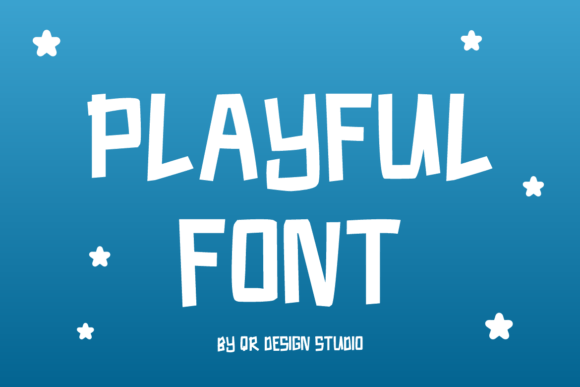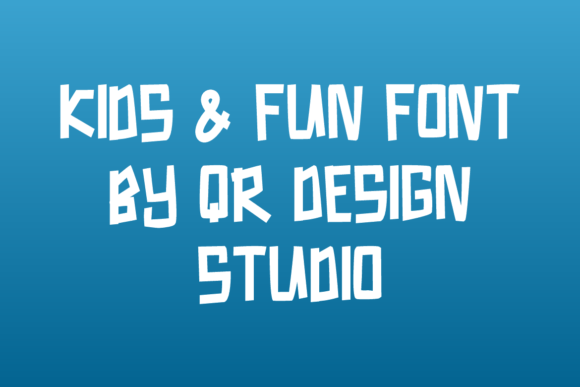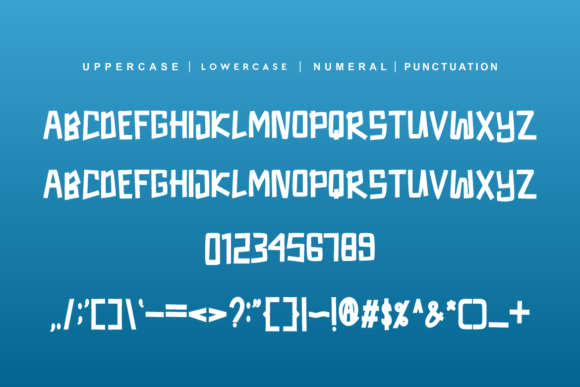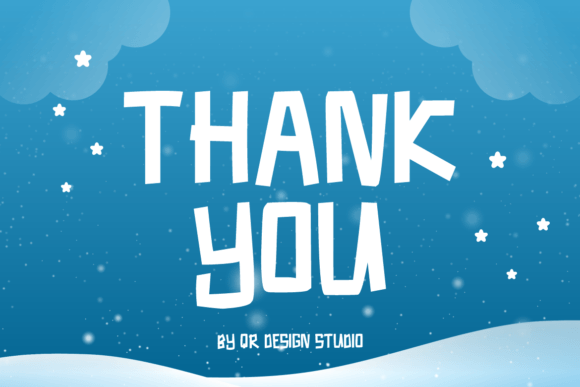
Introduction to Snow Funny Font
Have you ever stared at a blank canvas, feeling the weight of creative pressure? The cursor blinks, taunting you to make a move. And then, it happens – a burst of inspiration strikes, and you’re off on a design adventure. For those moments when you need a spark, we’ve got just the thing: the enchanting Snow Funny Font.
With its quirky charm and high-quality design, Snow Funny Font is the perfect addition to any creative project. Whether you’re working on a freelance project or a personal design endeavor, this unique display font will add an extra layer of magic to your work. Its transparent background and versatility make it a valuable resource for designers looking to add a touch of whimsy to their designs.
Key Features of Snow Funny Font
- Unique, whimsical design perfect for creative projects requiring a touch of winter magic.
- Perfect for creating eye-catching titles, headings, and other design elements for winter-themed projects, such as holiday cards, posters, and social media graphics.
Honest Review: Snow Funny Font
As a designer, I’m always on the lookout for high-quality design resources that can elevate my creative projects. The Snow Funny Font caught my eye, and I decided to give it a try.
- ✨ The font has a unique, playful design that’s perfect for adding a touch of whimsy to your projects.
- ⚠️ The font may not be suitable for all types of projects, particularly those that require a more formal or serious tone.
- ⚠️ The font’s design may not be suitable for small text sizes, which can make it difficult to read.
Overall, I’m impressed with the Snow Funny Font and would recommend it for creative projects where a playful, whimsical design is needed. While it may not be suitable for all projects, it’s a great addition to any designer’s toolkit.
Snow Funny Font: A Comprehensive Guide
Introduction to Snow Funny Font
Snow Funny Font is a high-quality, free design resource ideal for creative projects requiring a playful touch. Its transparent background makes it versatile for various applications, from digital graphics to print materials.
Getting the Most Out of Snow Funny Font
To get the most out of Snow Funny Font, experiment with different font sizes, colors, and combinations. You can also use it in conjunction with other design elements to create a unique look.
Common Use Cases for Snow Funny Font
Snow Funny Font is perfect for creative projects such as social media graphics, birthday invitations, and holiday cards. Its playful and fun design makes it ideal for any project that requires a lighthearted touch.